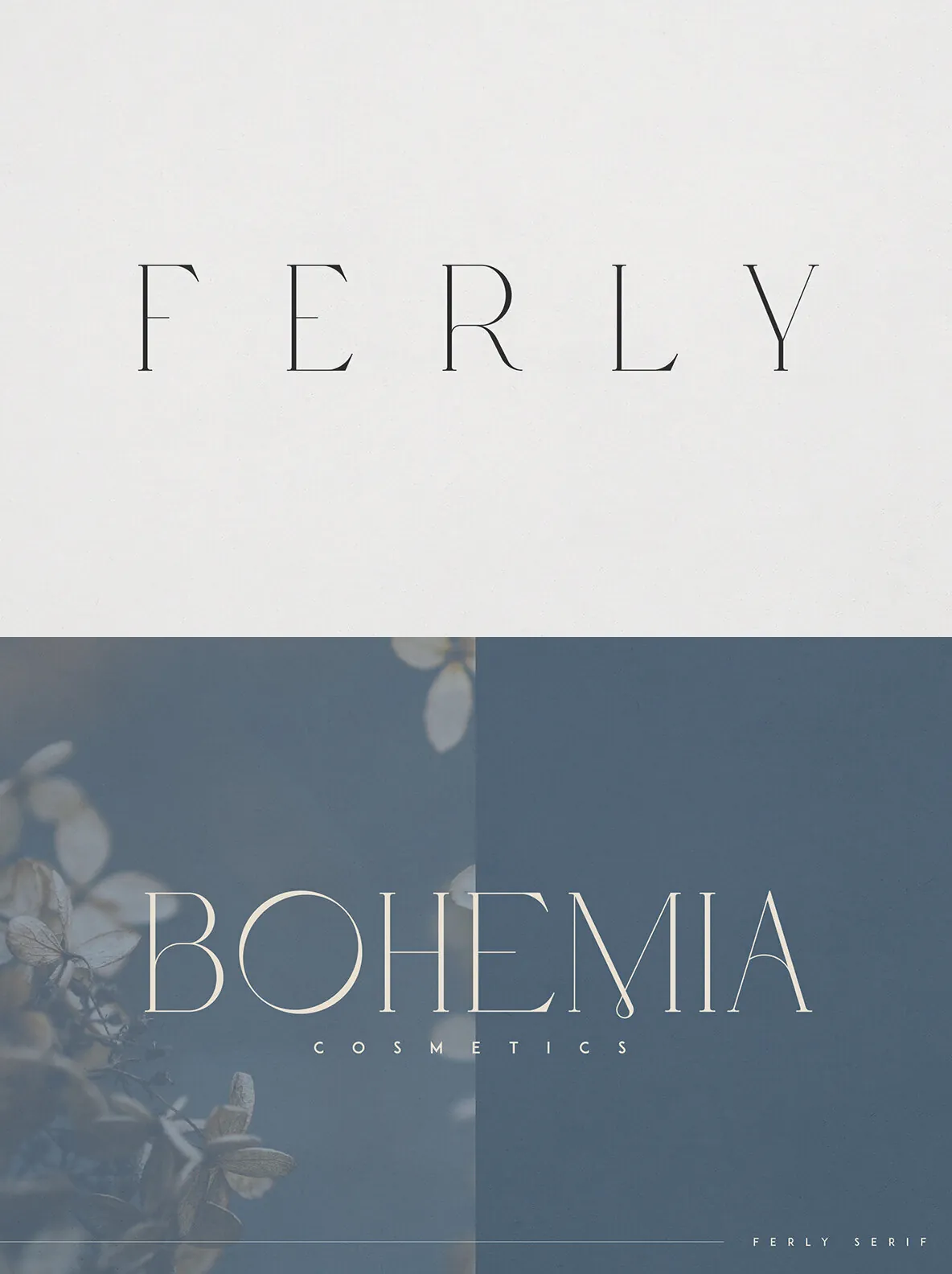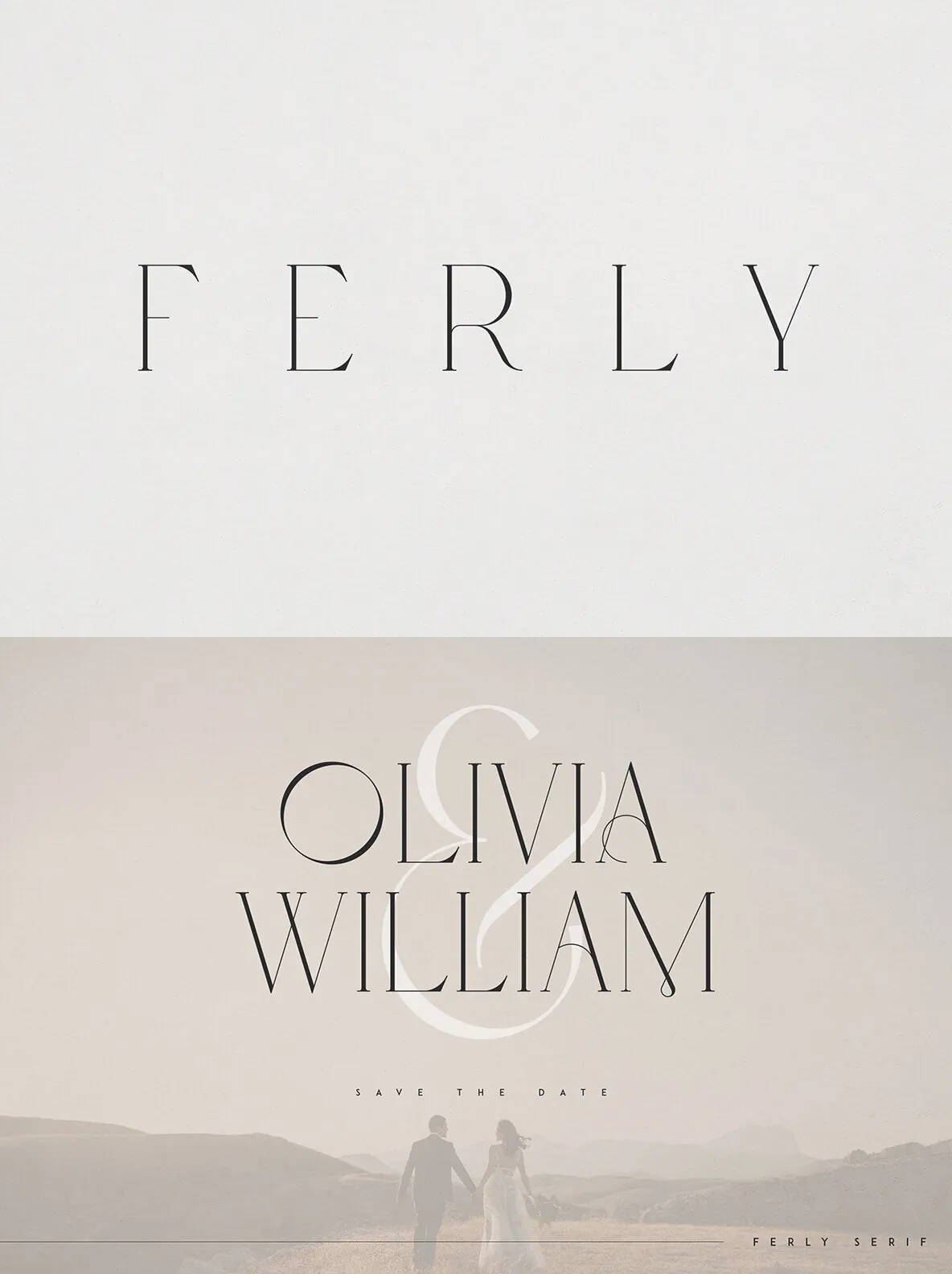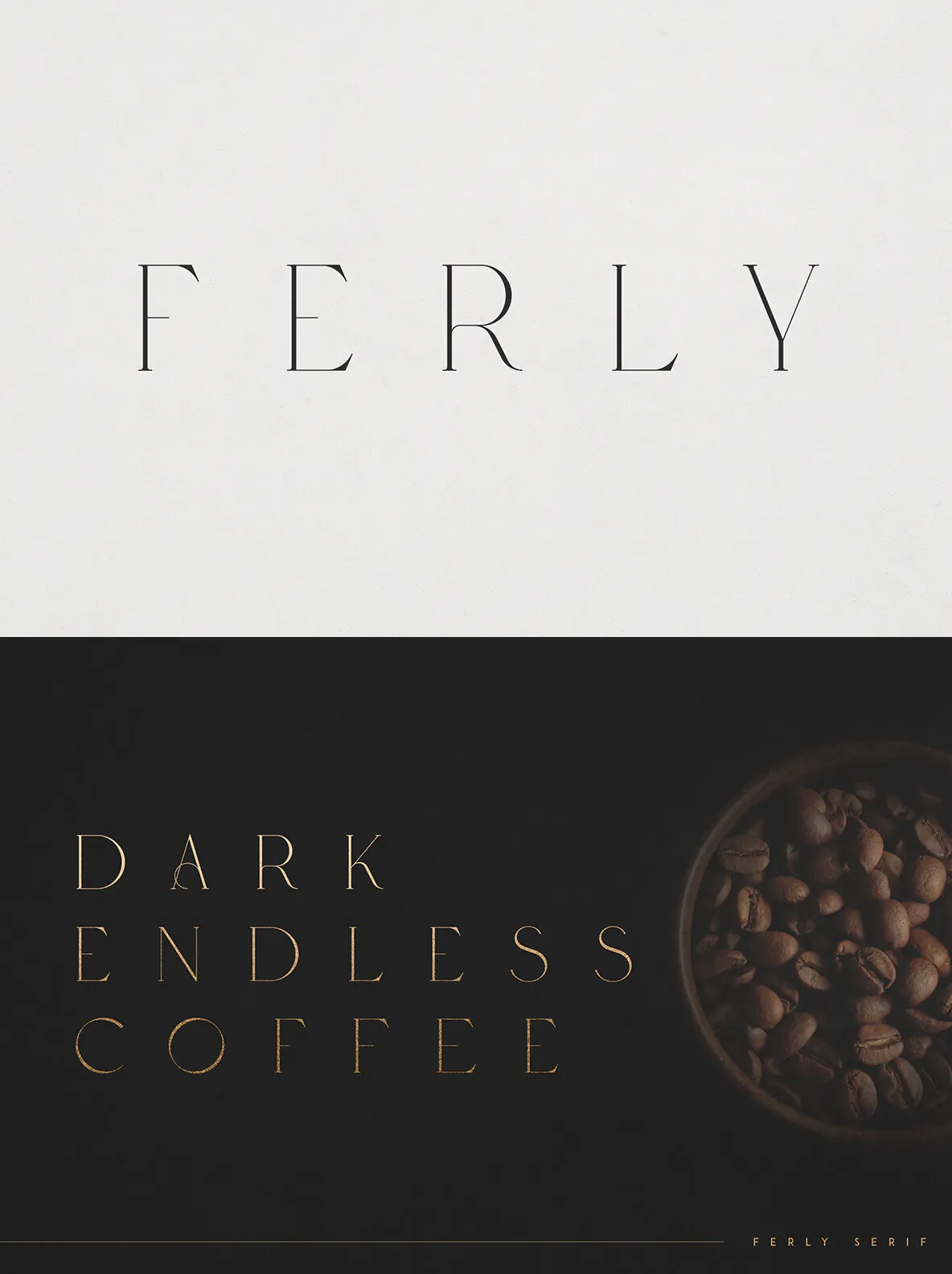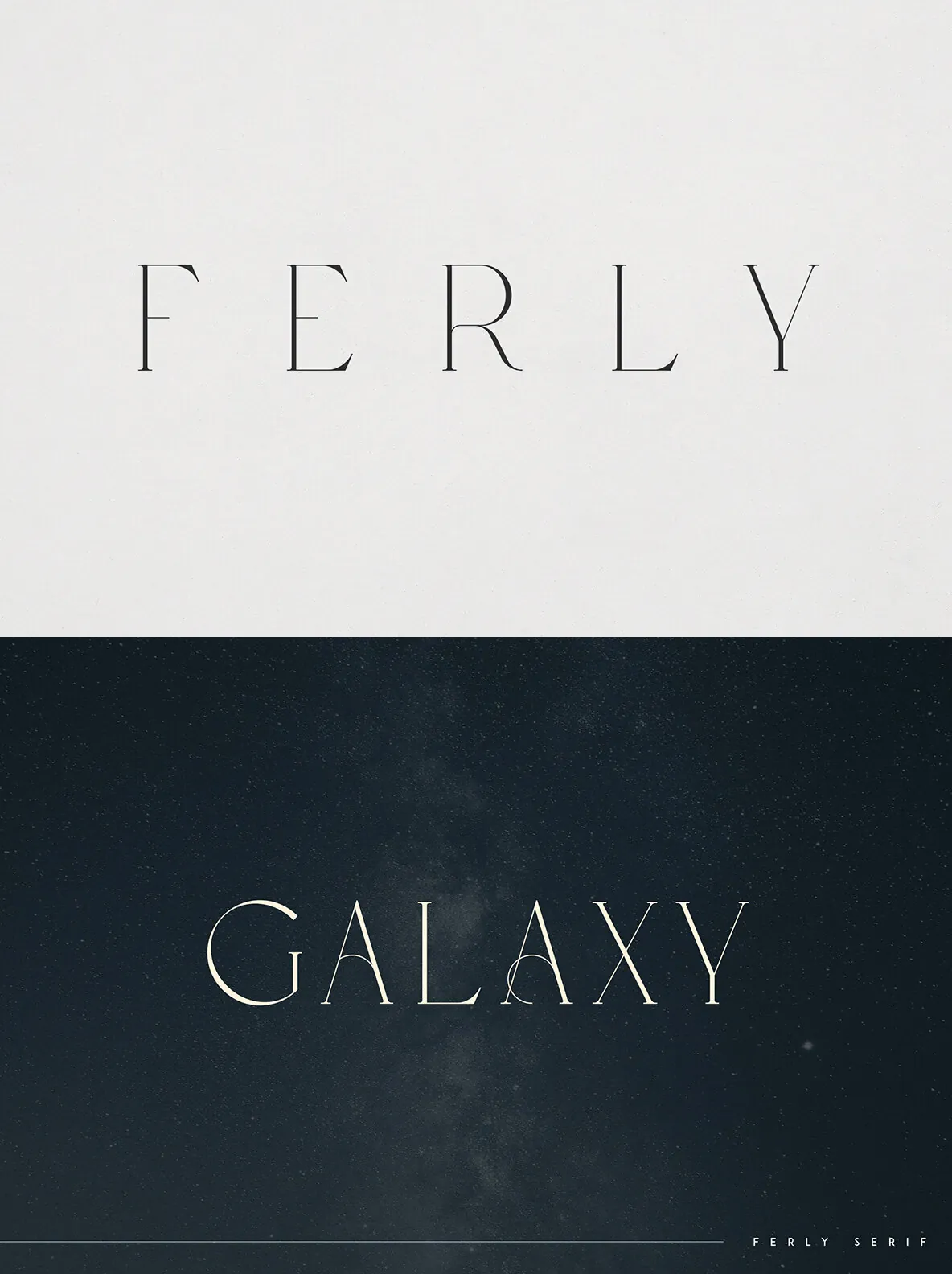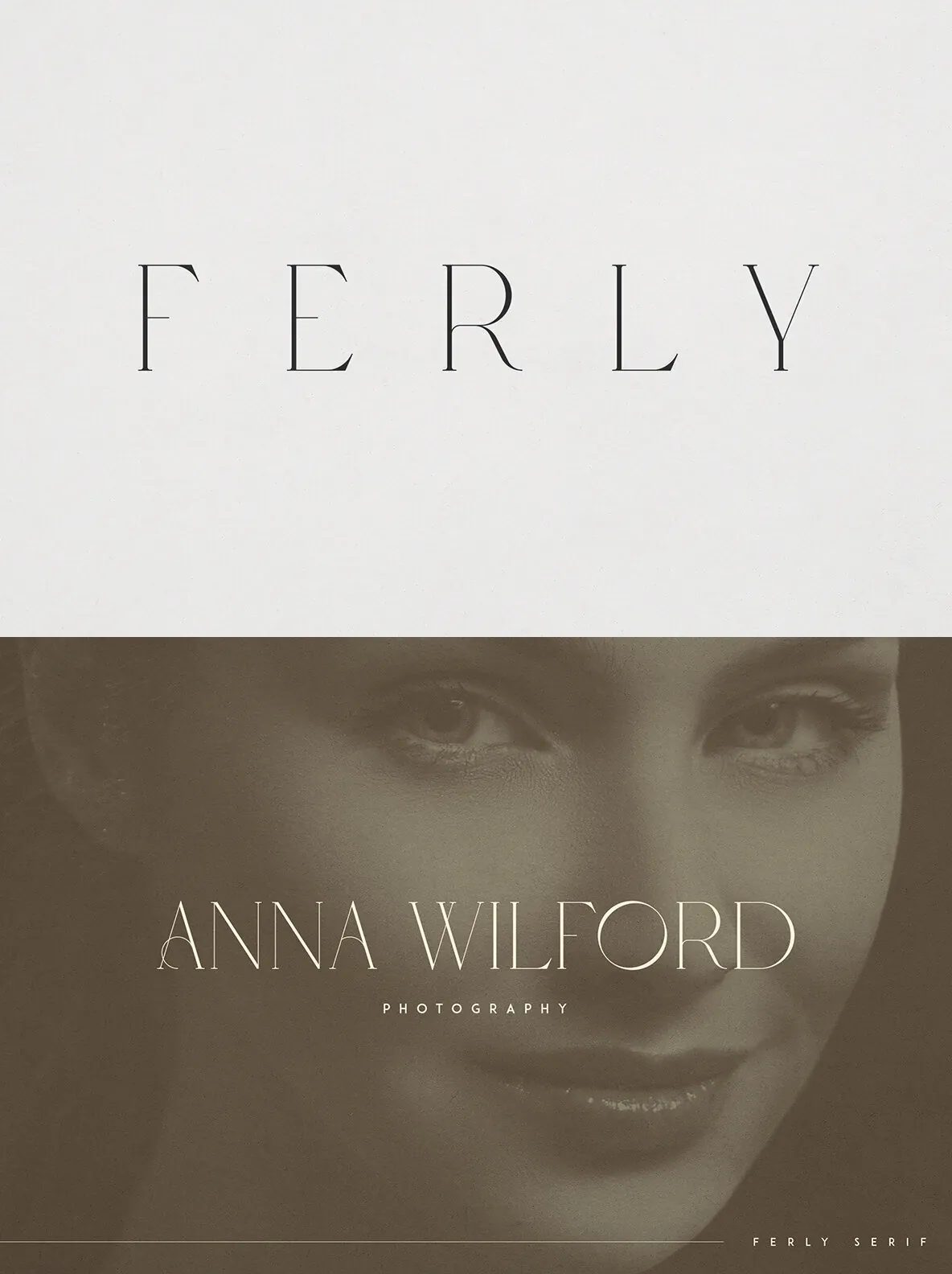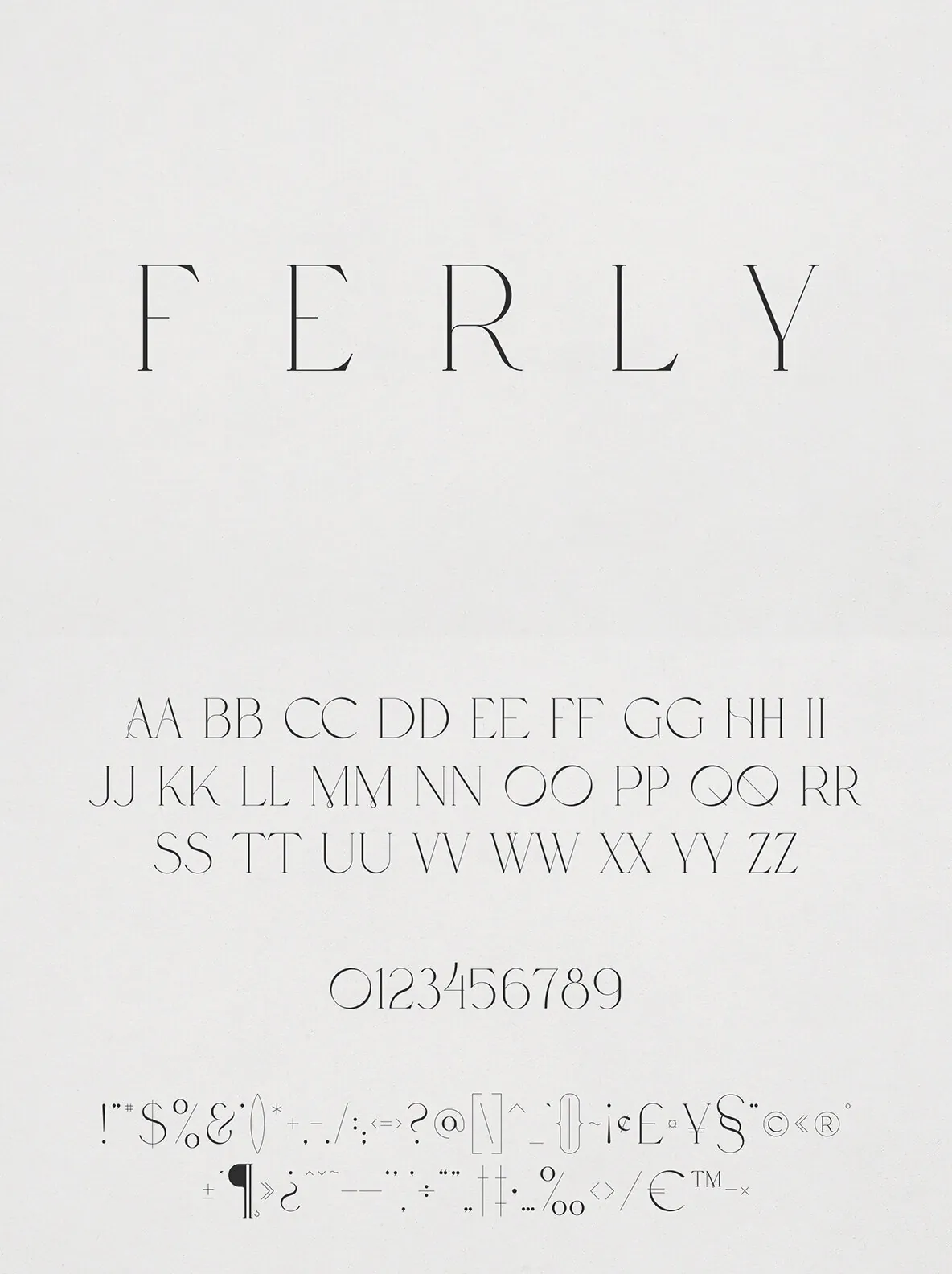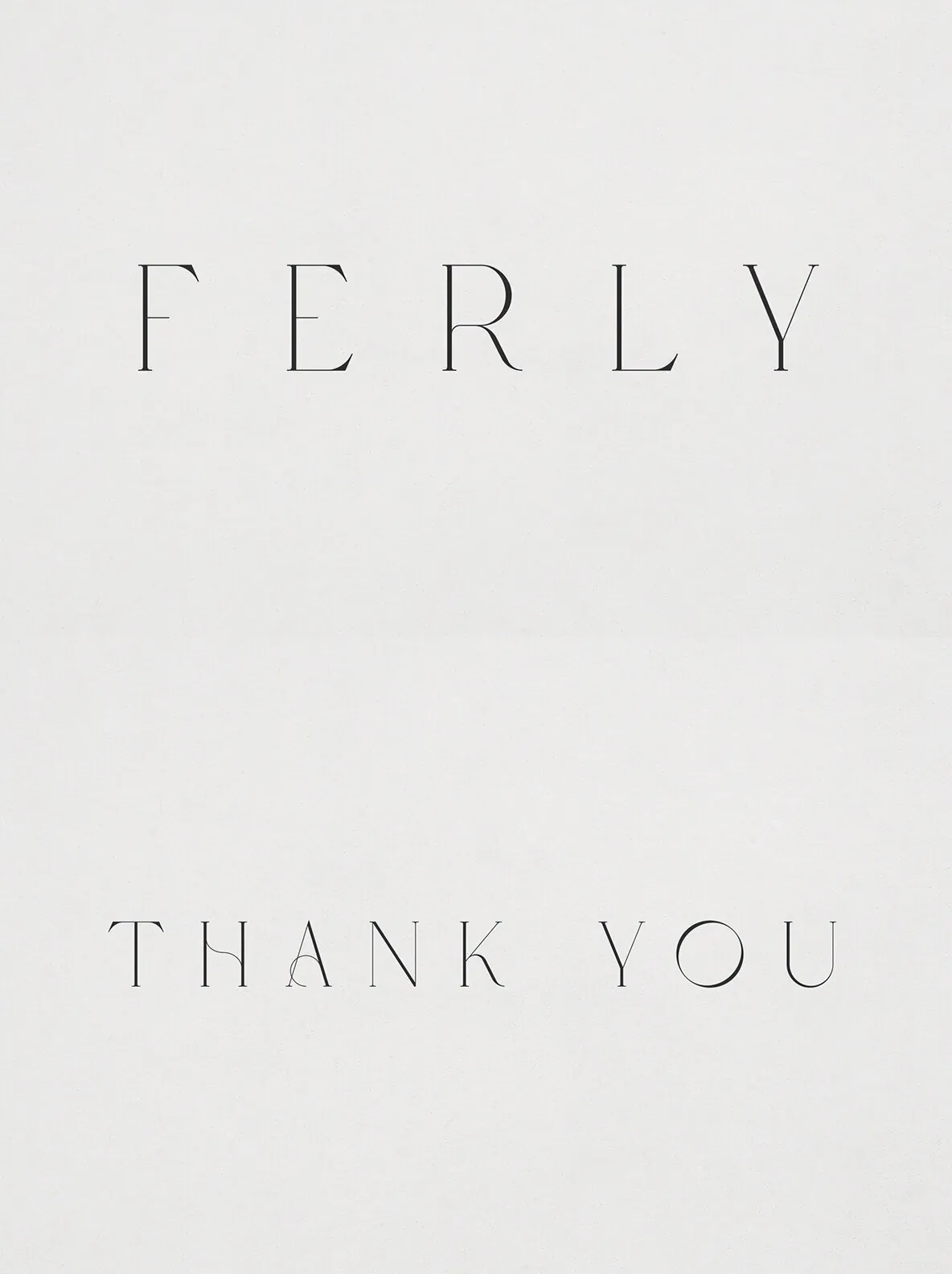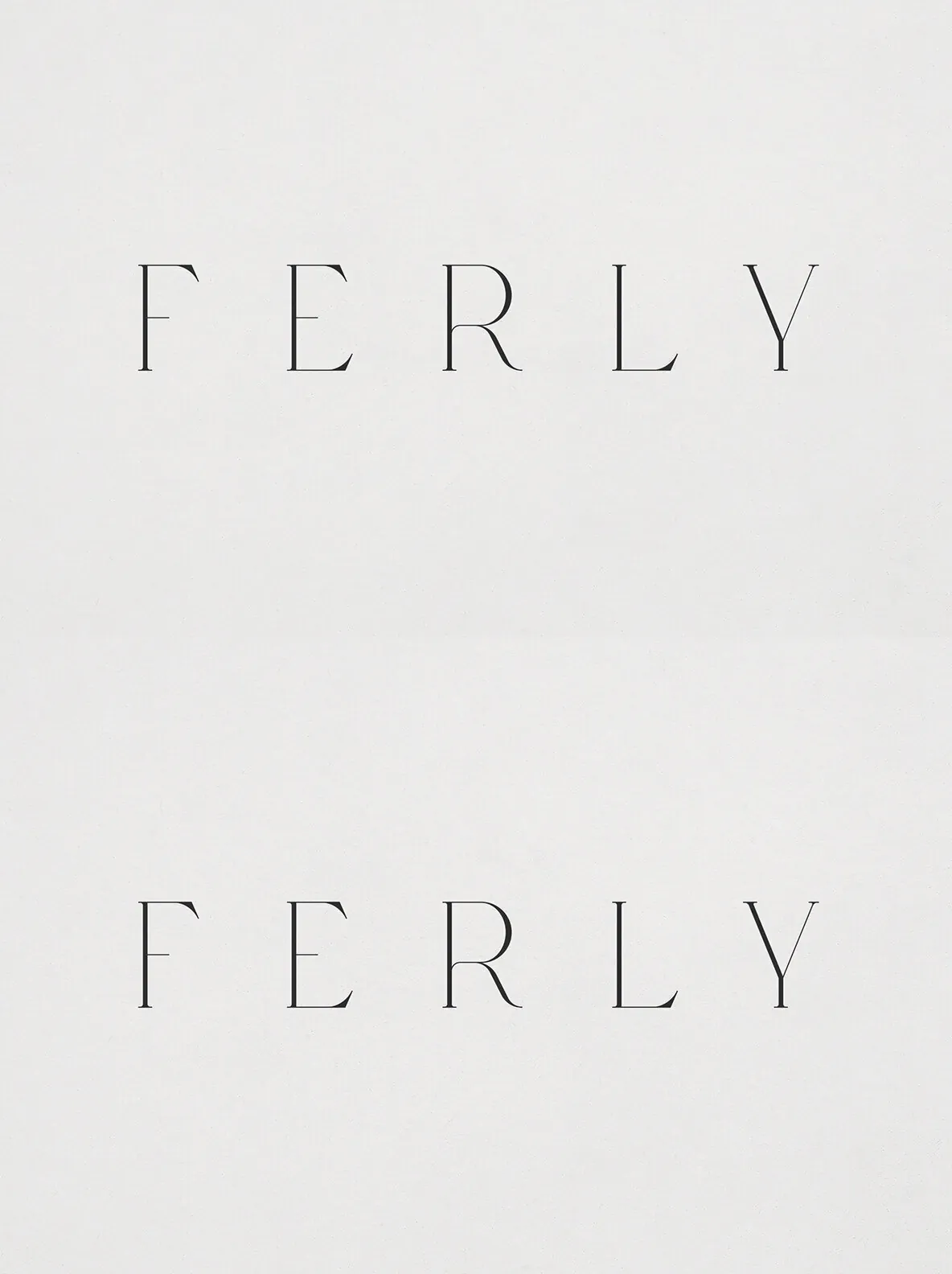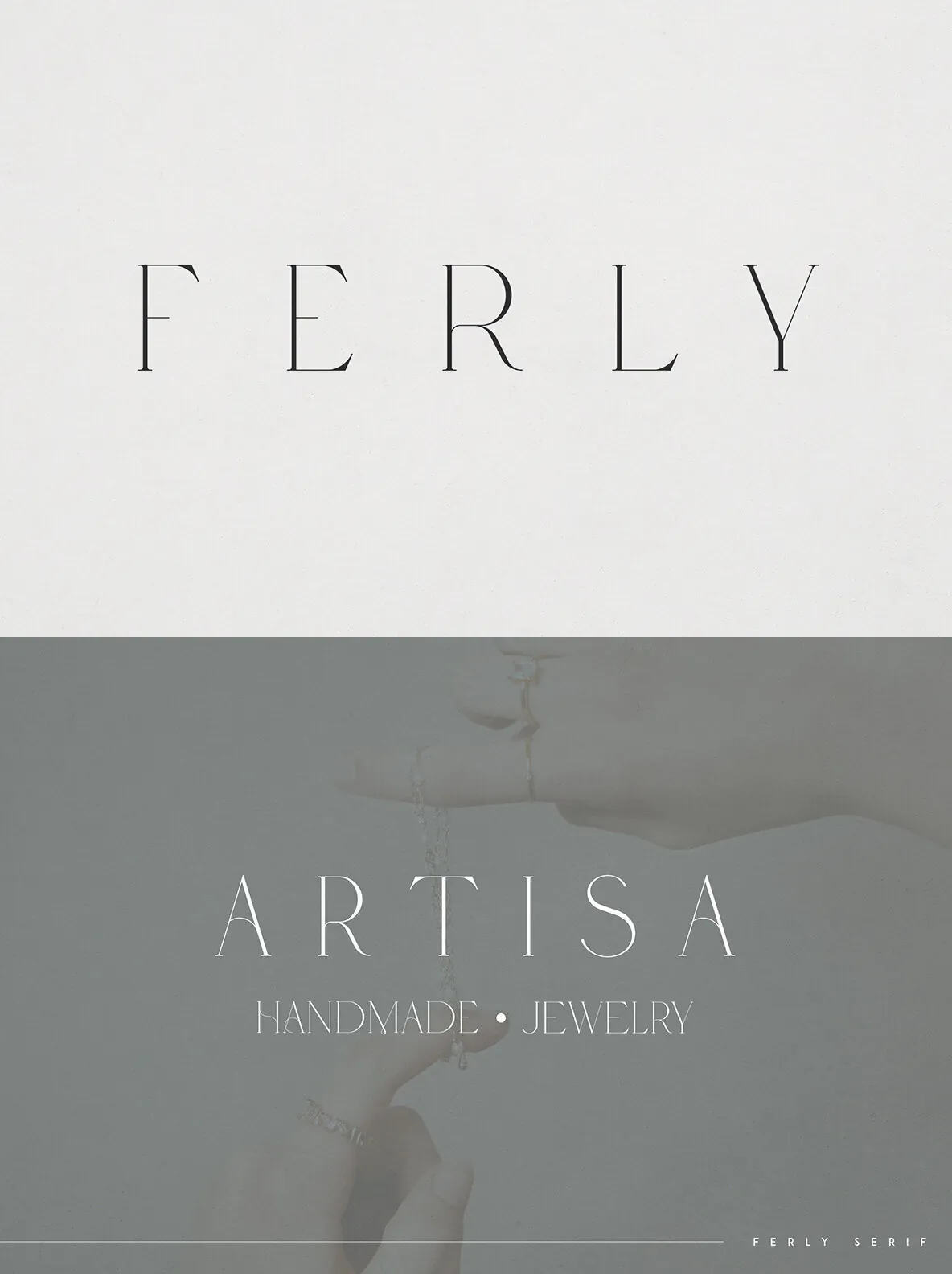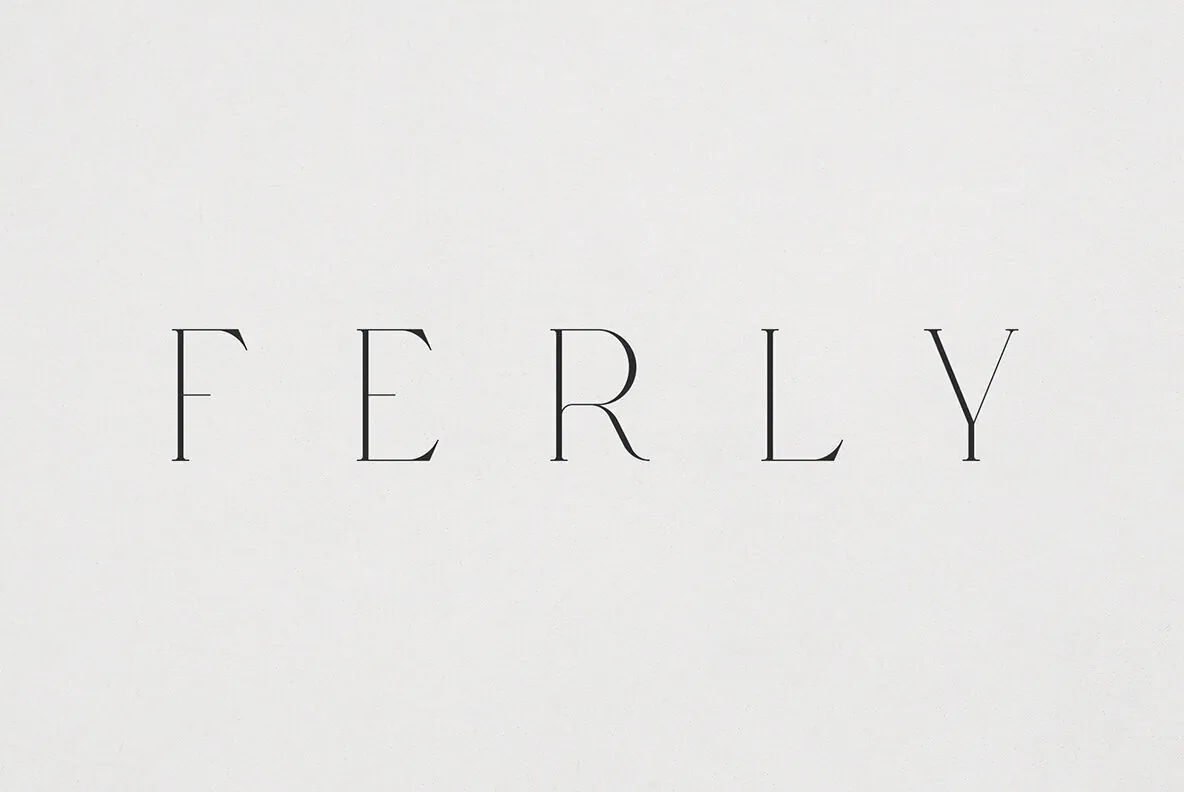
This high-contrast serif font exudes elegance and sophistication with its thin and sleek letterforms. Perfect for luxury branding, editorial layouts, and cinematic posters, it captures attention with its refined and stylish appearance. Ideal for designers seeking to convey a sense of modern sophistication in their projects.